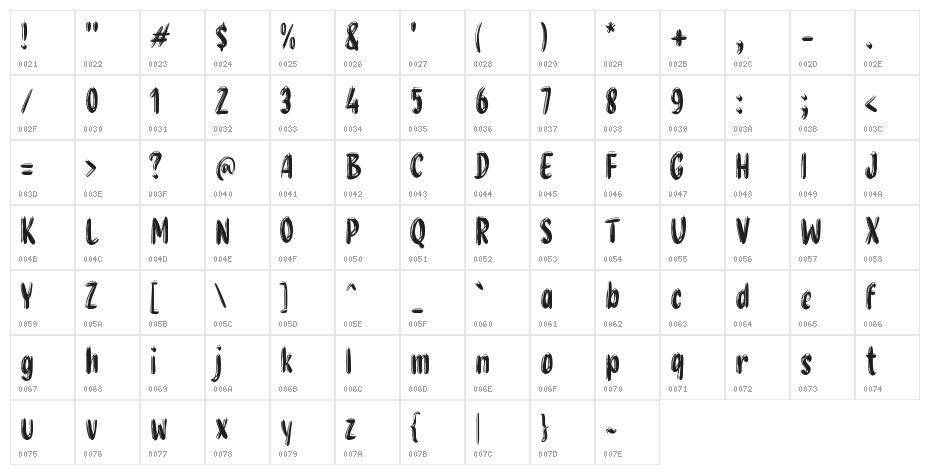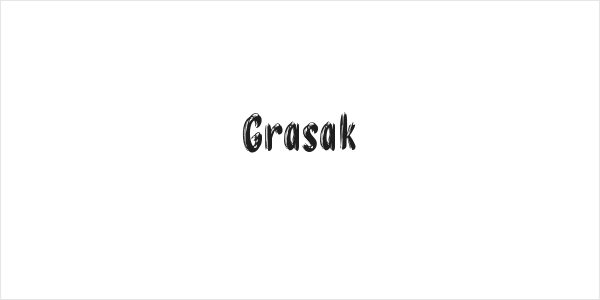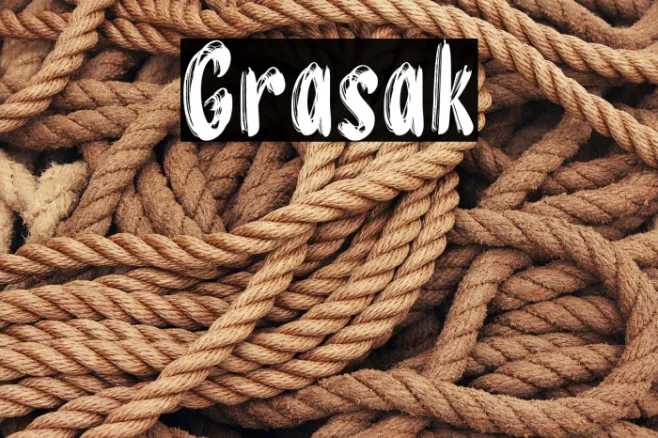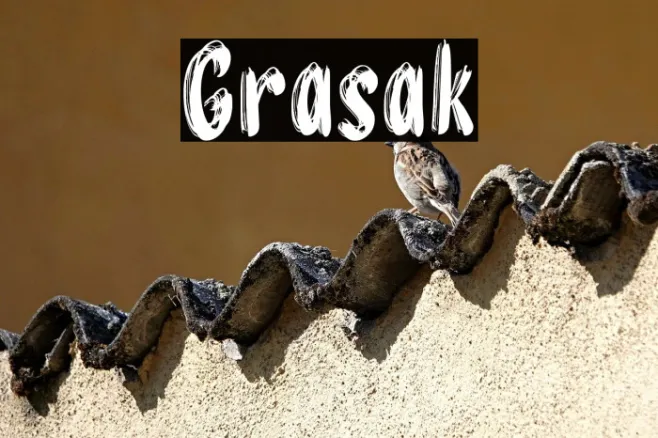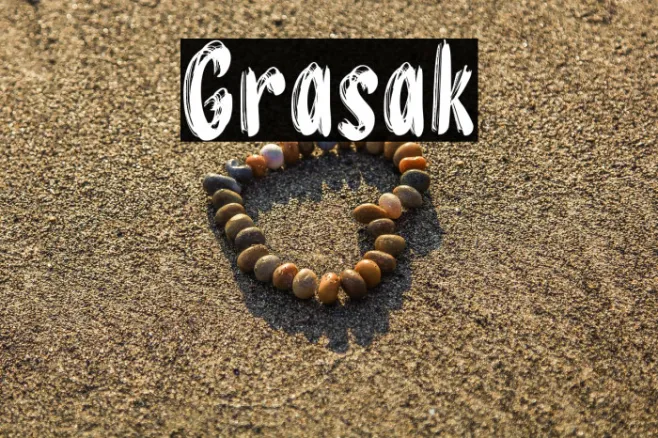
Grasak Font
Grasak Description
This font features a bold, expressive style with a hand-drawn appearance. The strokes are thick and dynamic, giving it a lively and energetic feel. Each character is uniquely crafted with varying stroke widths, creating a sense of movement and rhythm. The uppercase and lowercase letters maintain a consistent style, while the numbers and special characters complement the overall design. The brush-like texture adds a raw and artistic touch, making it stand out in any design project.